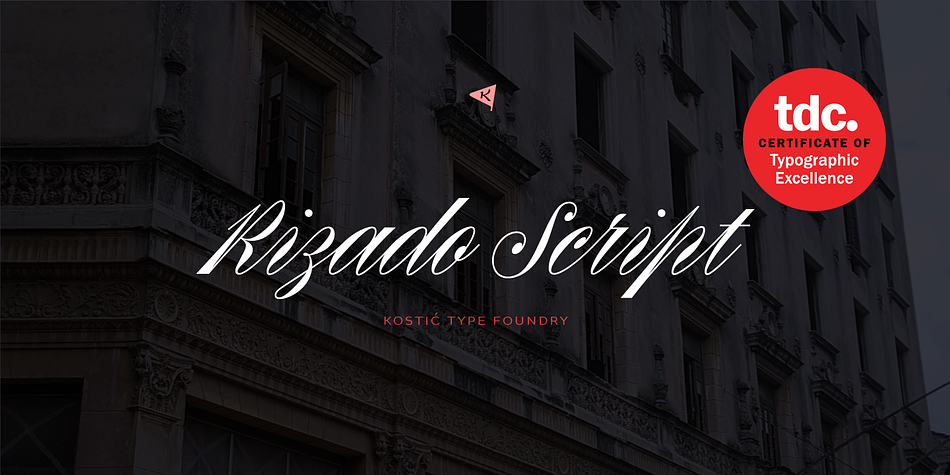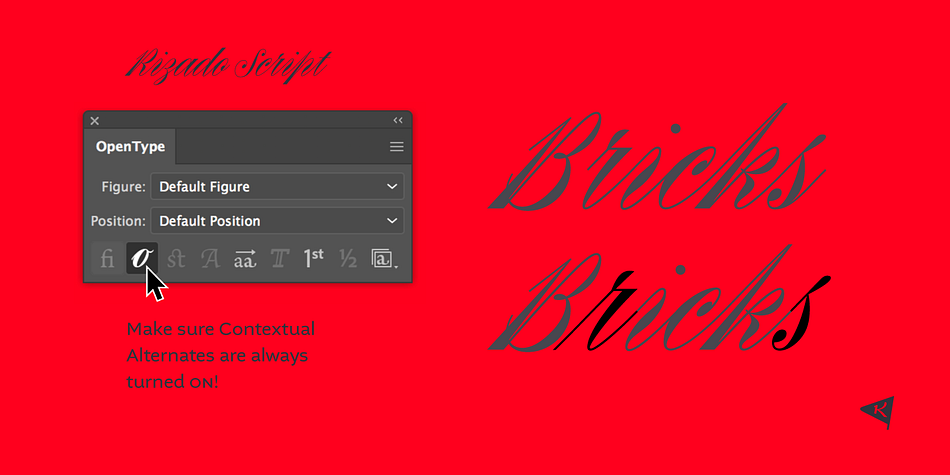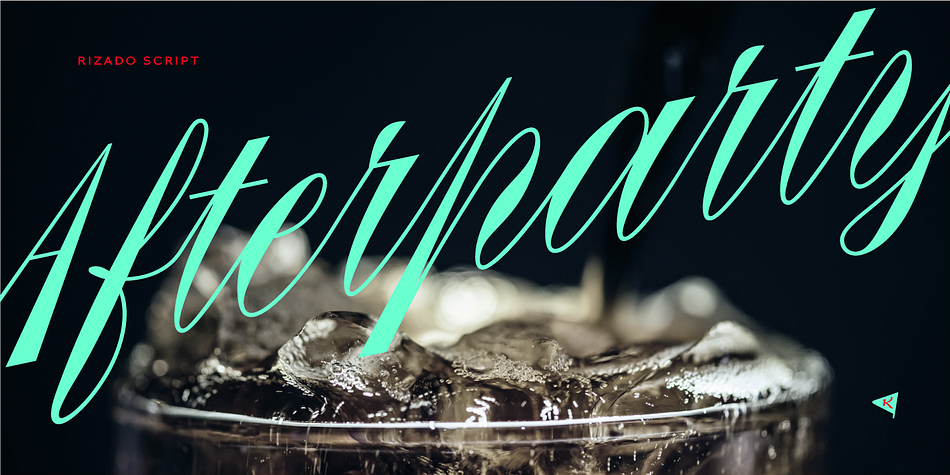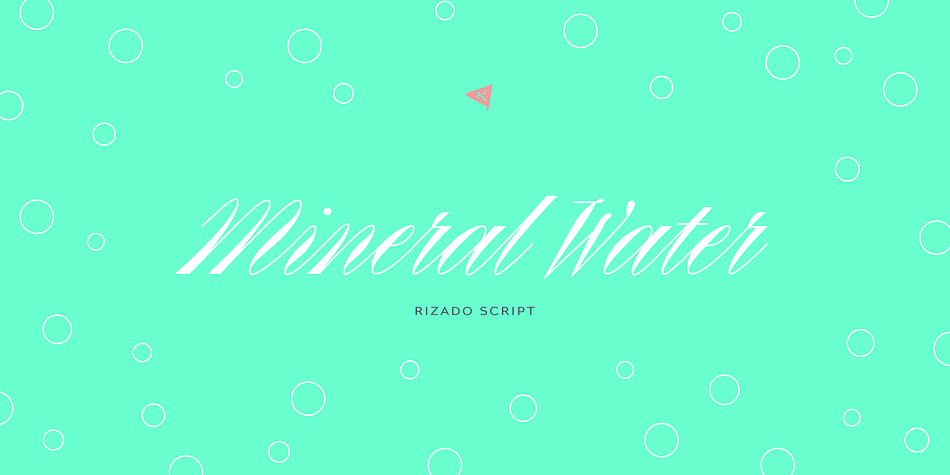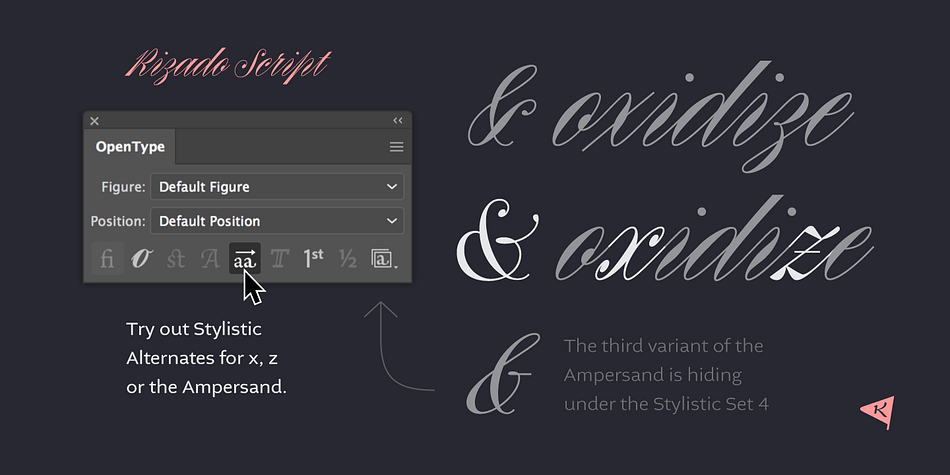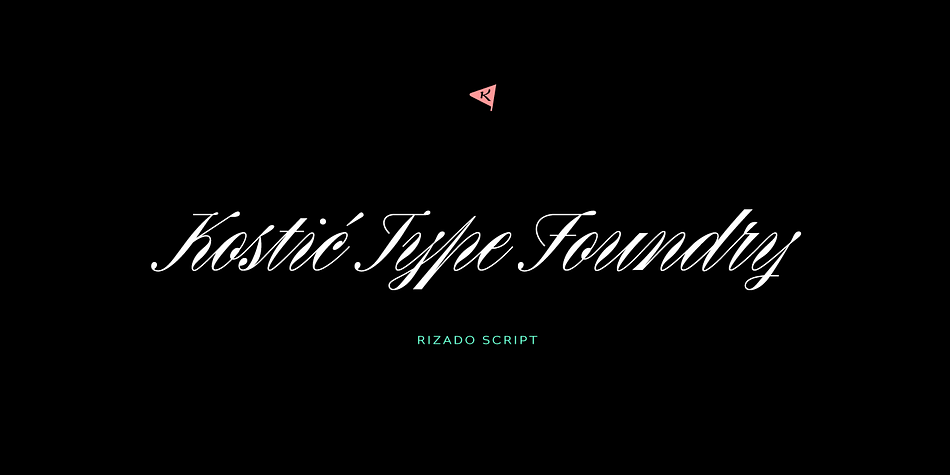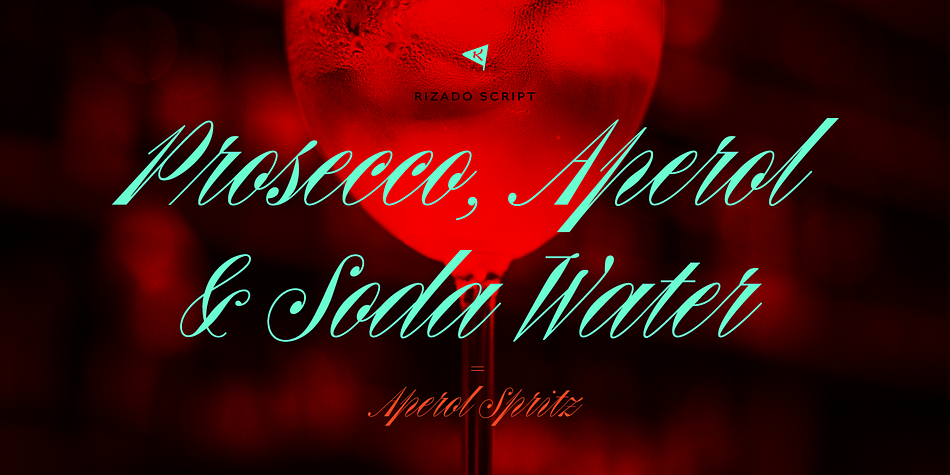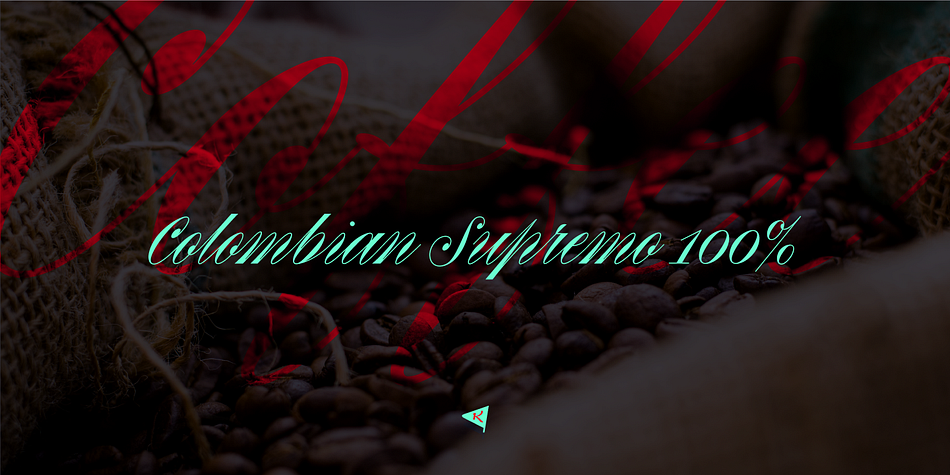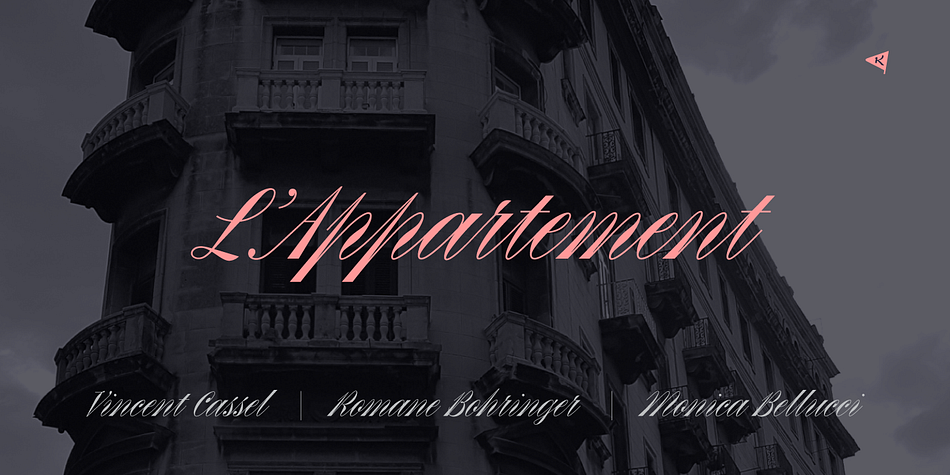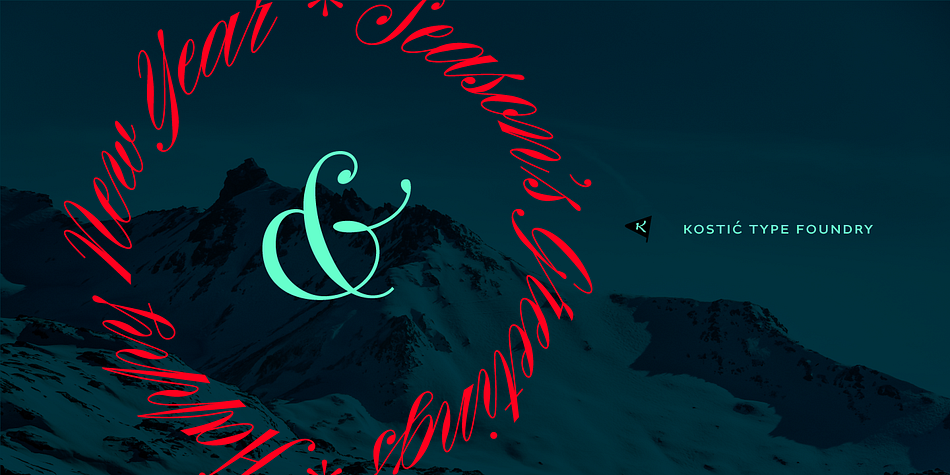
Designed by Nikola Kostić, Rizado is a script font published by Kostic Type Foundry.
Rizado Script is a classy one-weight script typeface, made with “dolce vita” in mind. Its high contrast and pointy tone are recalling the fine nib handwriting of a meticulous and decisive person that hasn’t got free time to spare but surely knows how to enjoy his life. No quick and dry strokes, but rather wide, elegant and strong-minded temper that will bring a long-lasting touch to your packaging layouts.
Sure, if you are looking for a good fit for some more ephemeral design such as a weekend high-class cocktail promotion, or a wedding invitation – this handy display typeface won’t let you down for a second. If you happen to go to Venice and enjoy their popular Aperitivo, you’ll be asked to choose between three types of bitter-reddish base drink. Rizado will bring you the same amount of pleasure, authority and uniqueness while you pick out one of the three ampersands or other alternate characters.
According to the concept of Fellini’s lifestyle, “la dolce vita” is a luxury lifestyle full of cheerful worldly pleasure. But don’t let yourself be fooled by this moto, because Italians are famous for their modesty and sagacity as well. That’s why you’re always supposed to turn on the Contextual Alternates (to activate extra positional forms — isolated, initial and final) and keep your voice down and never set this typeface in all Capital letters.
There are 391 total glyphs made to support West European, Central European and South East European languages.